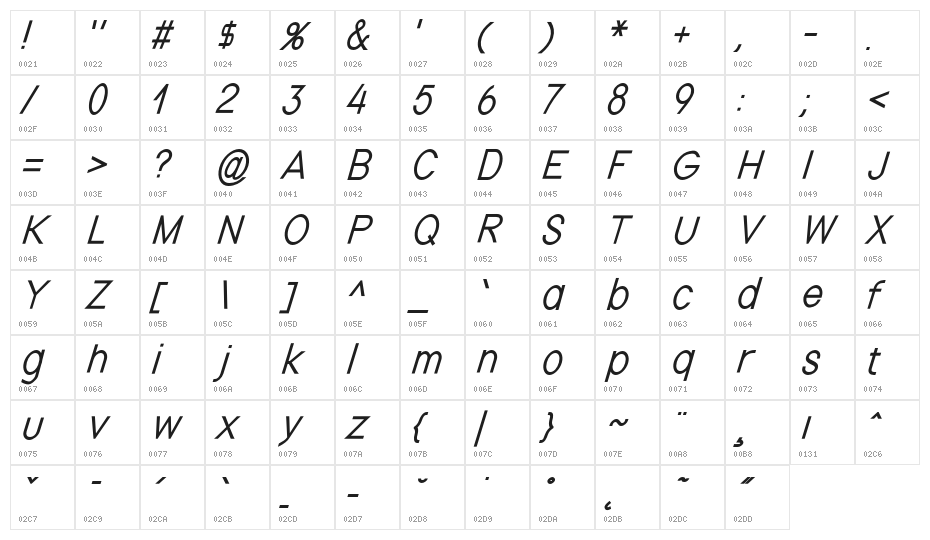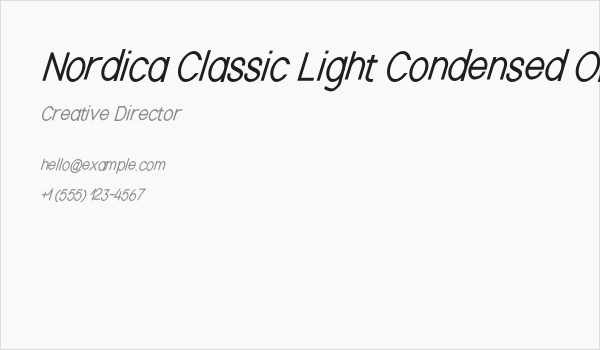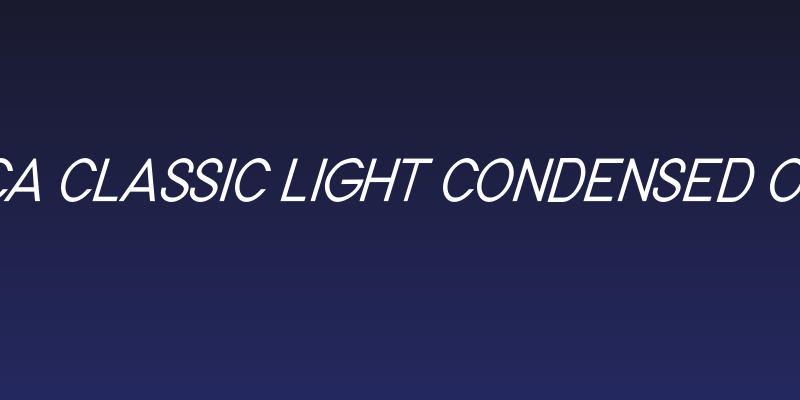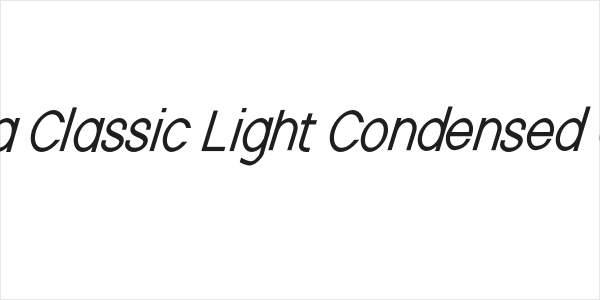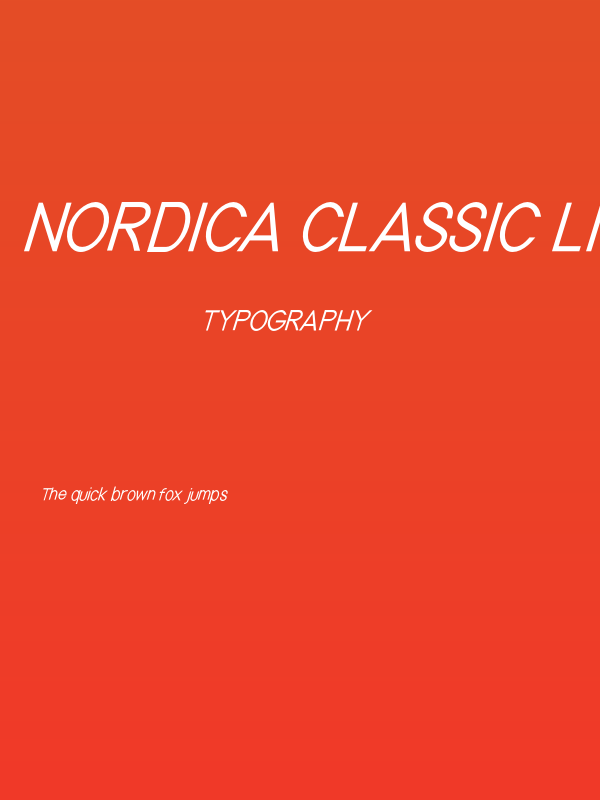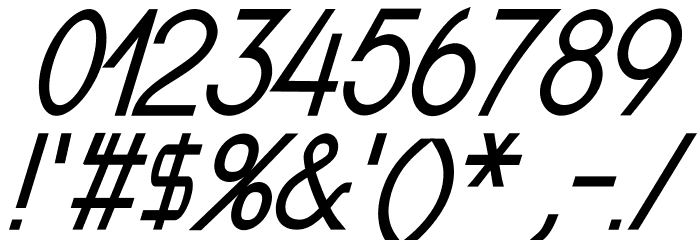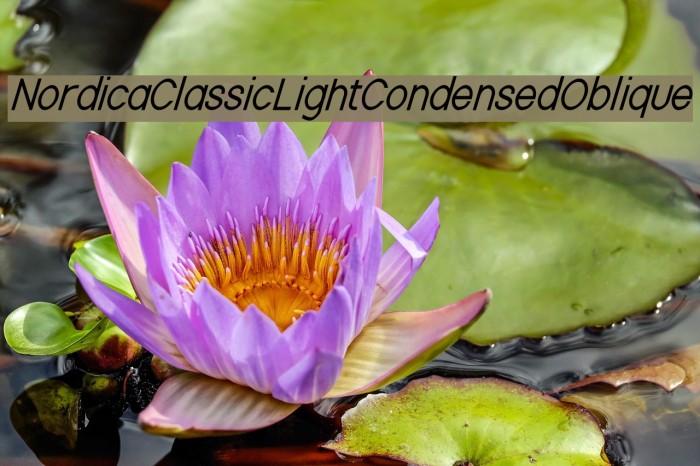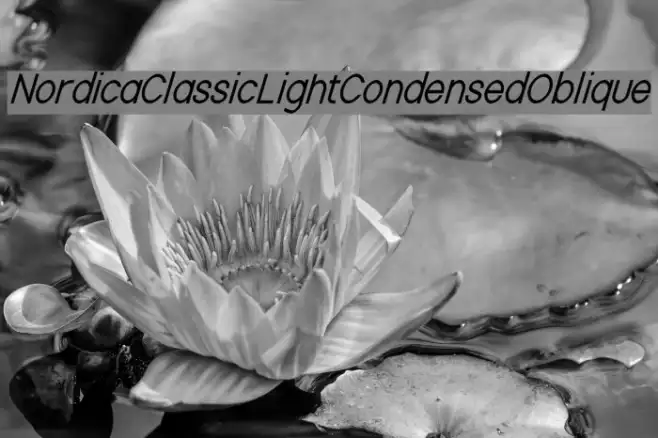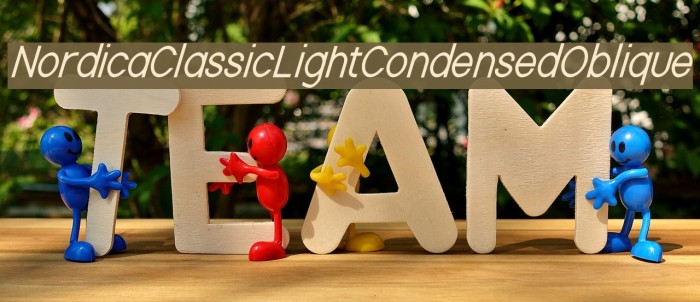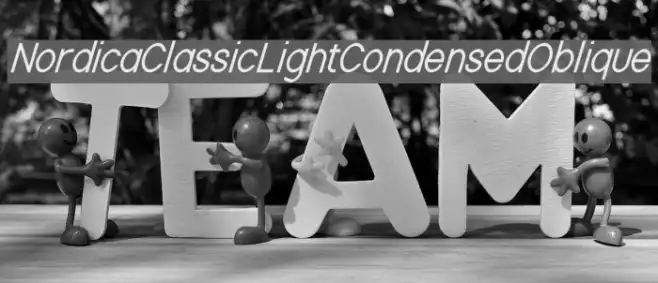
Nordica Classic Light Condensed Oblique Font
Nordica Classic Light Condensed Oblique Description
This font features a sleek, modern design with a light weight and condensed width, giving it a streamlined and elegant appearance. The oblique style adds a dynamic and forward-leaning character, enhancing its contemporary feel. The characters are well-defined with smooth curves and clean lines, providing excellent readability. The spacing between characters is tight, which contributes to its compact and efficient look. The font's overall style is minimalistic yet sophisticated, making it suitable for a variety of design applications.
| Use Case | Headlines, Body text, Logos |
| Proposed Projects | Ideal for modern branding, editorial design, advertising, and digital interfaces. |